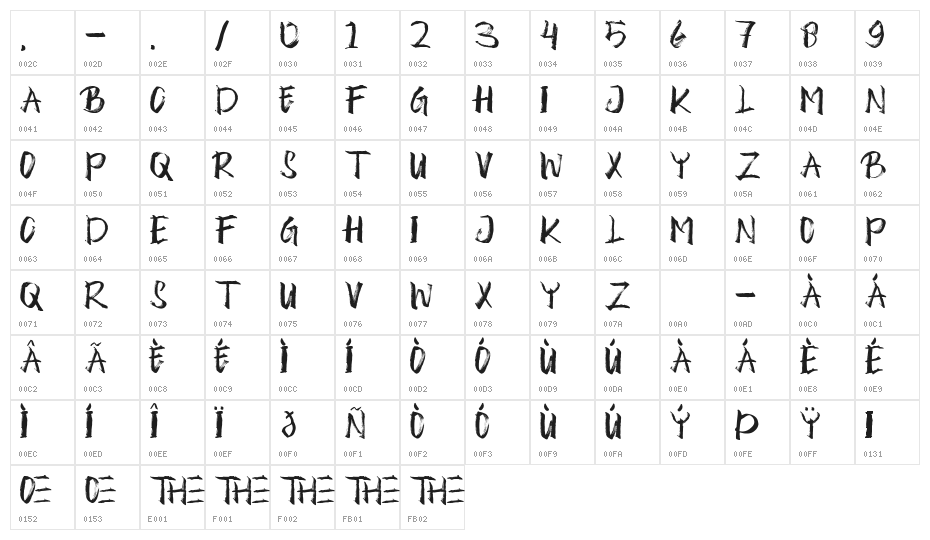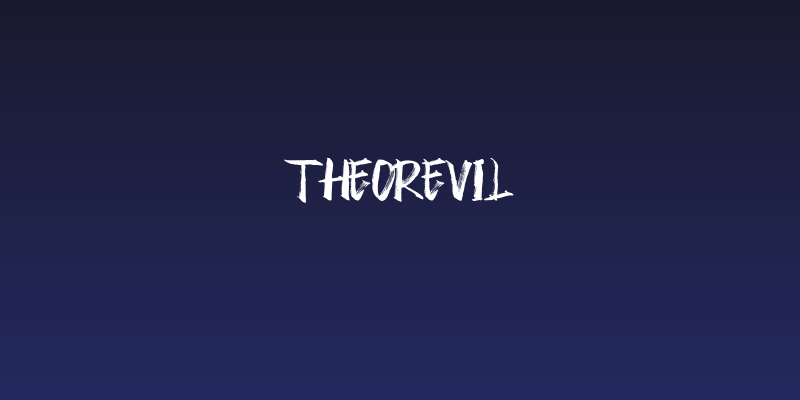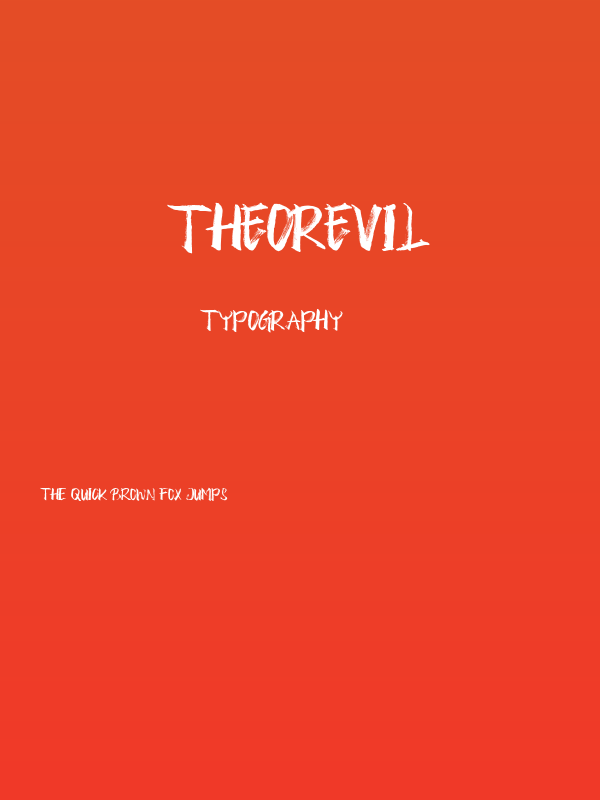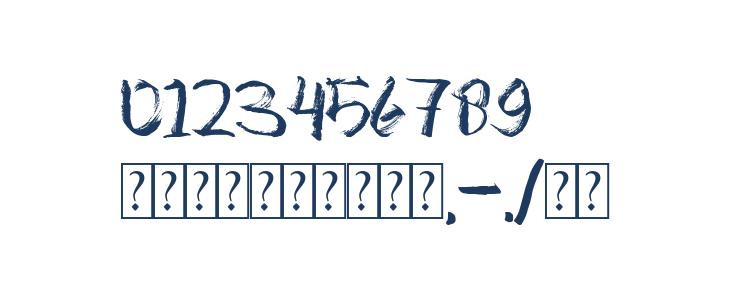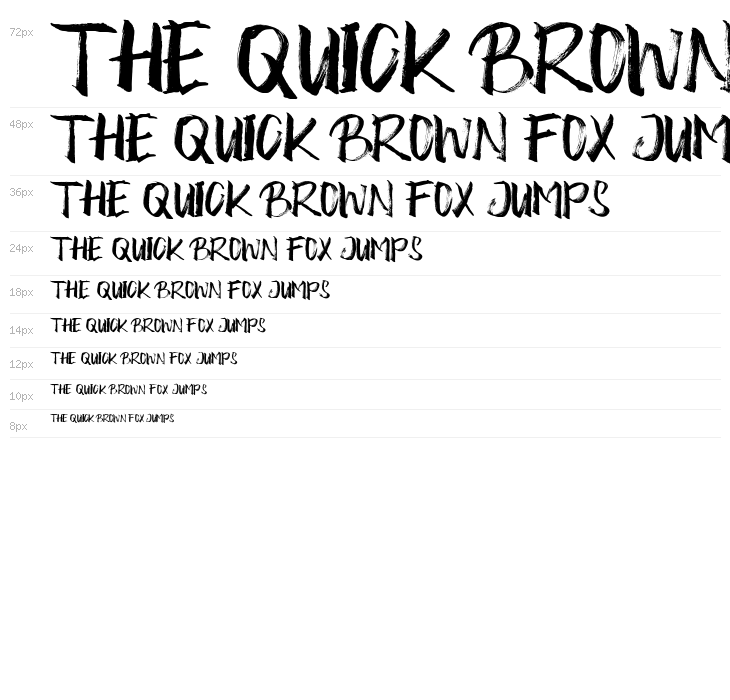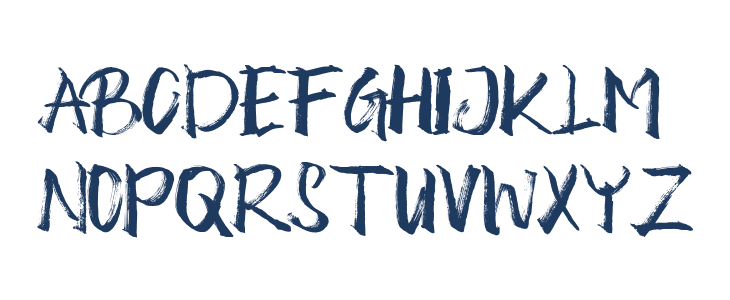
Theorevil Font
Theorevil Description
This font features a bold, expressive brush style that exudes energy and dynamism. The strokes are uneven and textured, giving it a hand-painted appearance. The uppercase letters are particularly striking, with dramatic flourishes and varying stroke widths that create a sense of movement. The lowercase letters maintain this energetic style, though they are slightly more restrained. Numbers and punctuation follow the same aesthetic, ensuring consistency across all characters. This font is ideal for projects that require a bold, artistic touch.
| Proposed Projects | Ideal for posters, album covers, branding, and any project needing an artistic flair. |